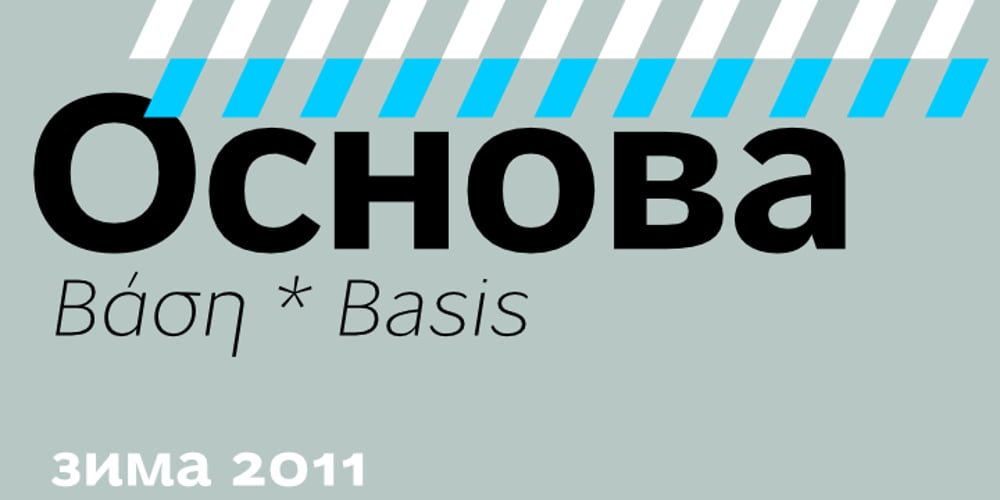
Osnova Pro Font Family was designed by Andrij Shevchenko and published by AndrijType. Osnova Pro contains 12 styles and family package options. The common Slavic word Osnova means basis in English and βάση in Greek. This universal but still distinctive typeface can make a good ground for any design project. Osnova has six weights from Thin to Heavy with Italic, Small Caps, Old Style & Tabular Figures, some ligatures, alternatives and letter variations. It supports Central European, Greek and Cyrillic codepages, and will be suited for both display and text use. Look how people use it: http://use.type.org.ua/tagged/osnova